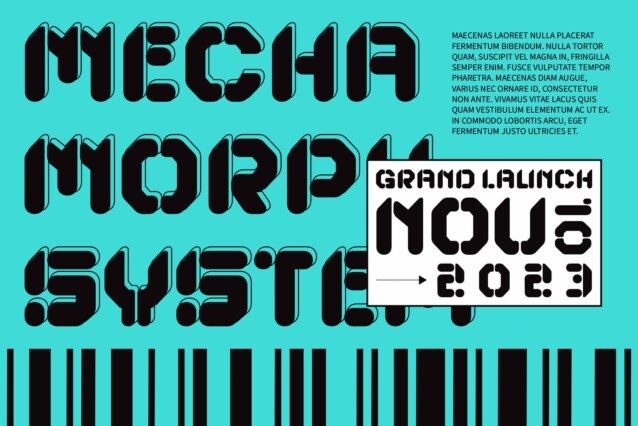
Liavin Rounded Font
Liavin Rounded Font is a modern display font that seamlessly merges a futuristic design with rounded elegance. Its avant-garde shapes deliver a cutting-edge, innovative look, while the rounded edges introduce a sense of warmth and readability. This harmonious blend creates a font that exudes a forward-thinking, futuristic vibe, making it perfect for a range of contemporary applications.